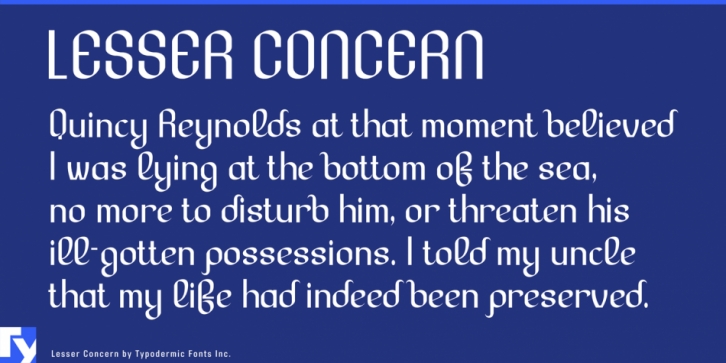
Lesser Concern is a display sans font family. This typeface has two styles and was published by Typodermic Fonts Inc.
Lesser Concern is a modular, calligraphic display font based on capsule shapes.